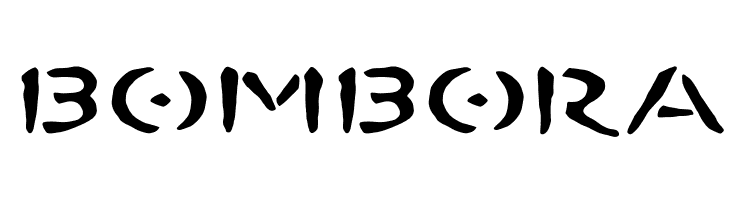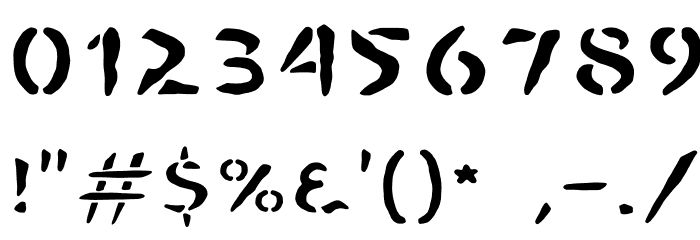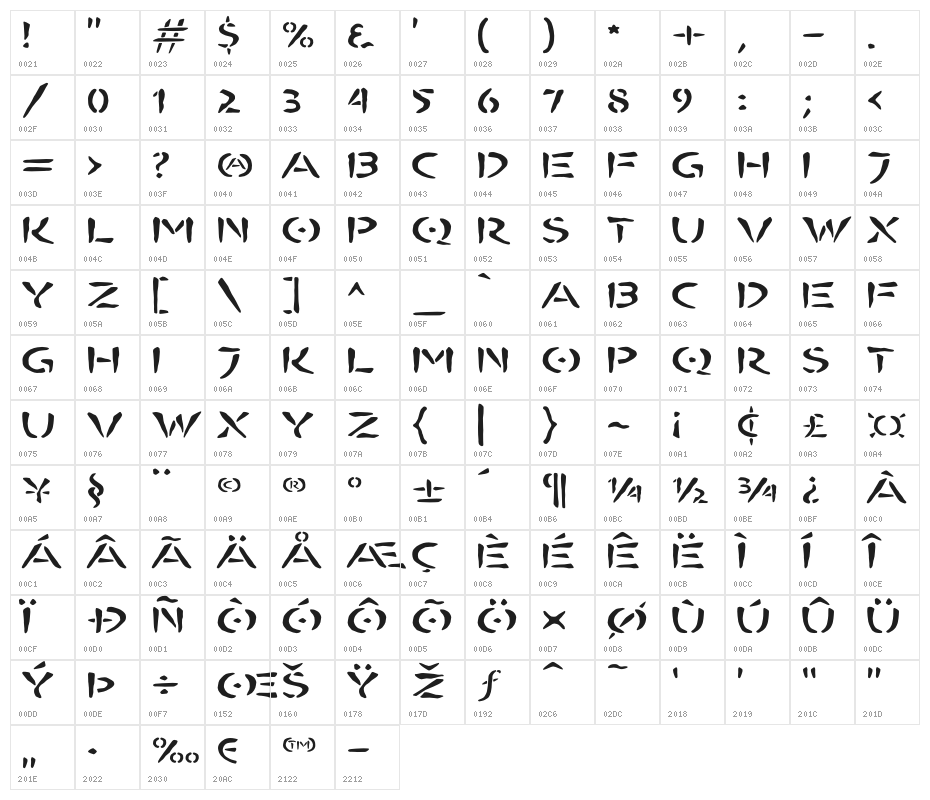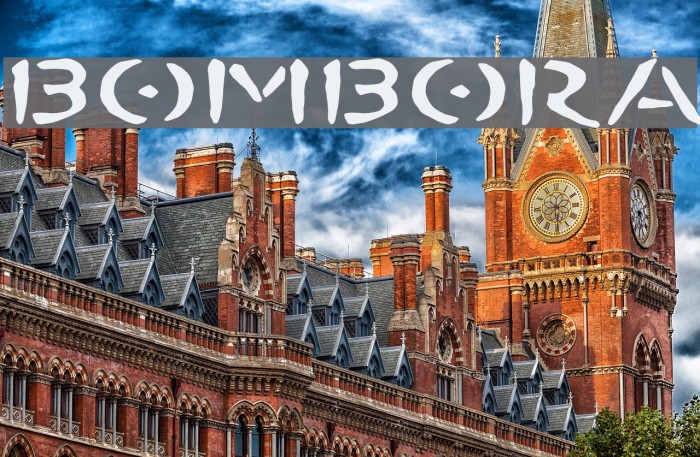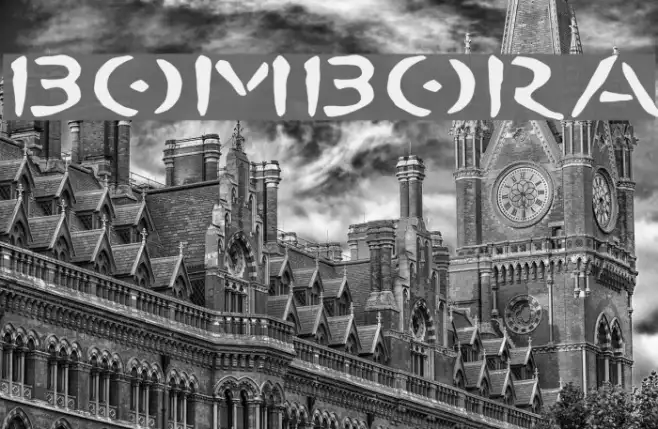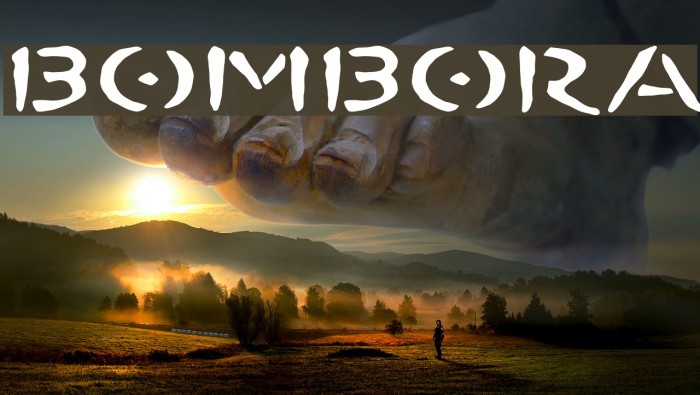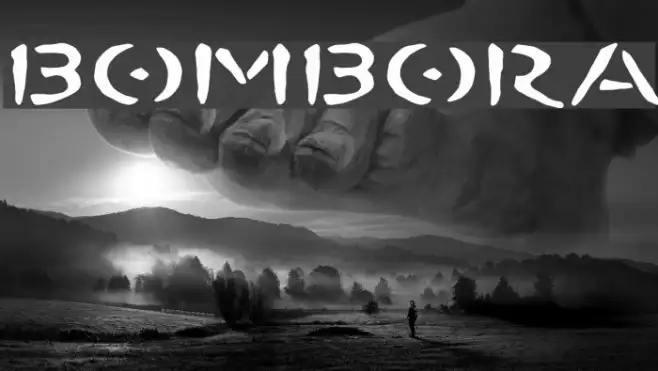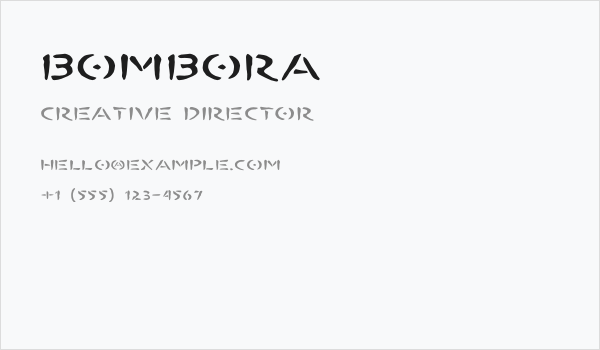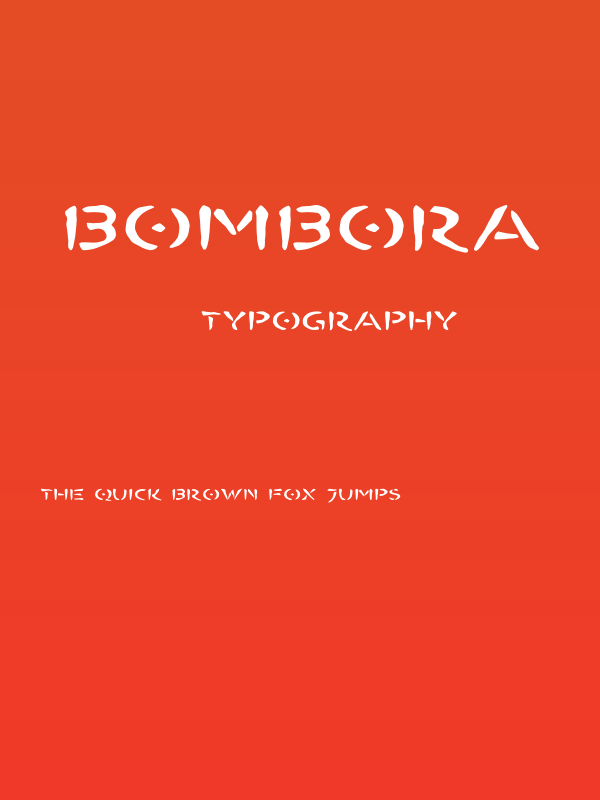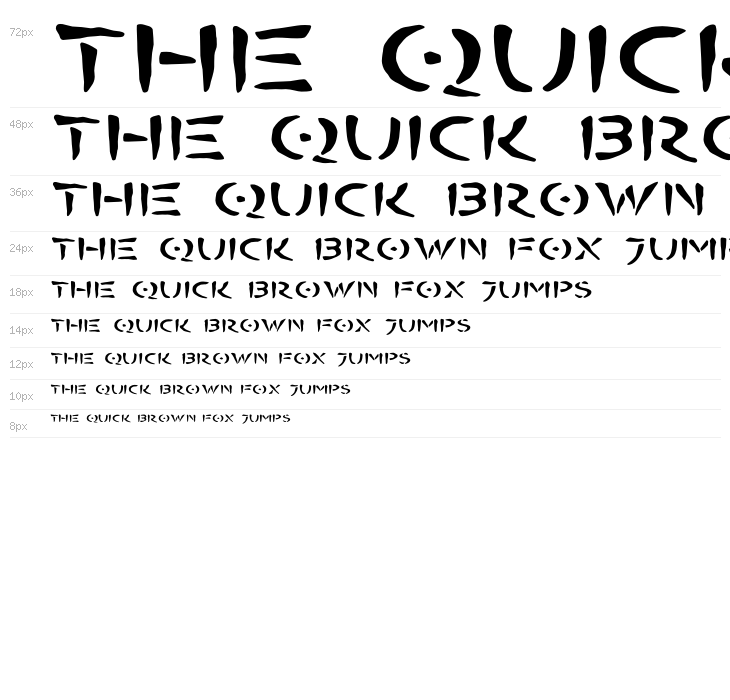
BOMBORA Font
BOMBORA Description
This font features a bold and dynamic style with a distinct stencil-like appearance. The characters are sharply angled with a unique cut-out effect that gives them a modern and edgy feel. The uppercase and lowercase letters maintain a consistent design, with the uppercase being slightly more pronounced. Numbers and special characters follow the same aesthetic, ensuring a cohesive look across all text. The font's boldness and unique design make it stand out, making it ideal for attention-grabbing headlines or logos.